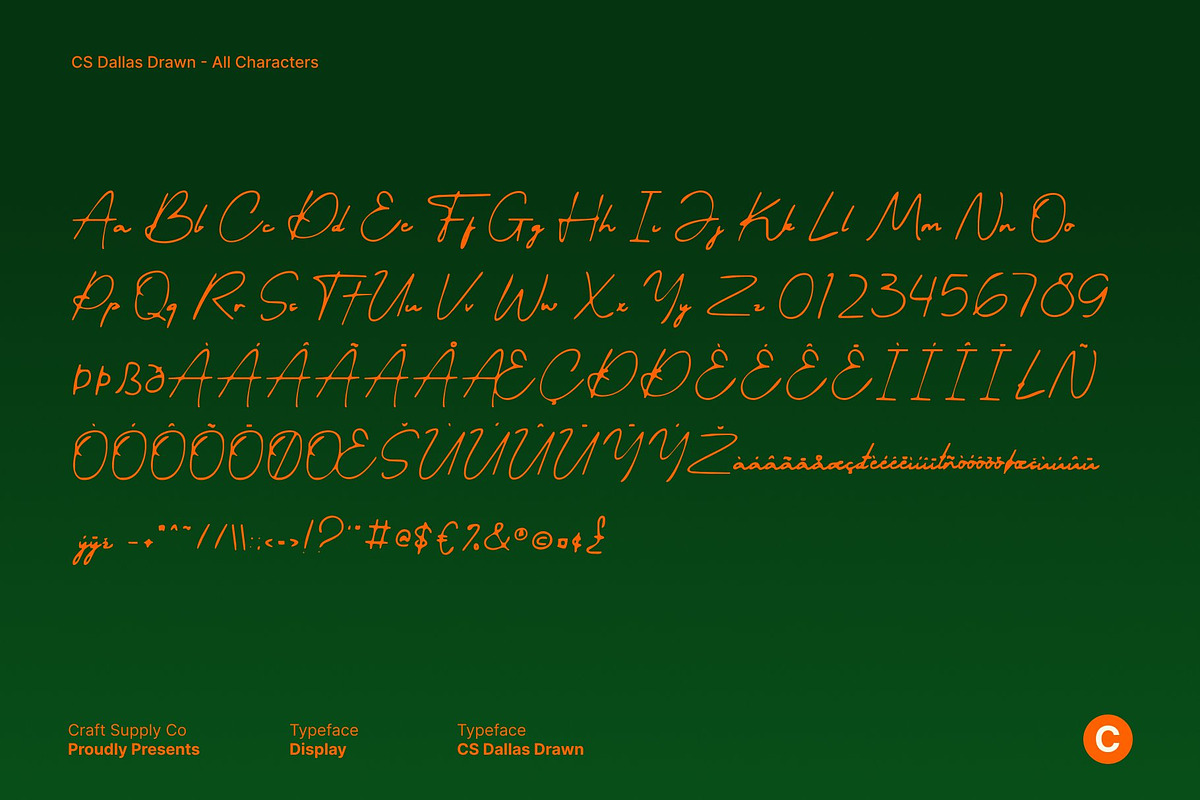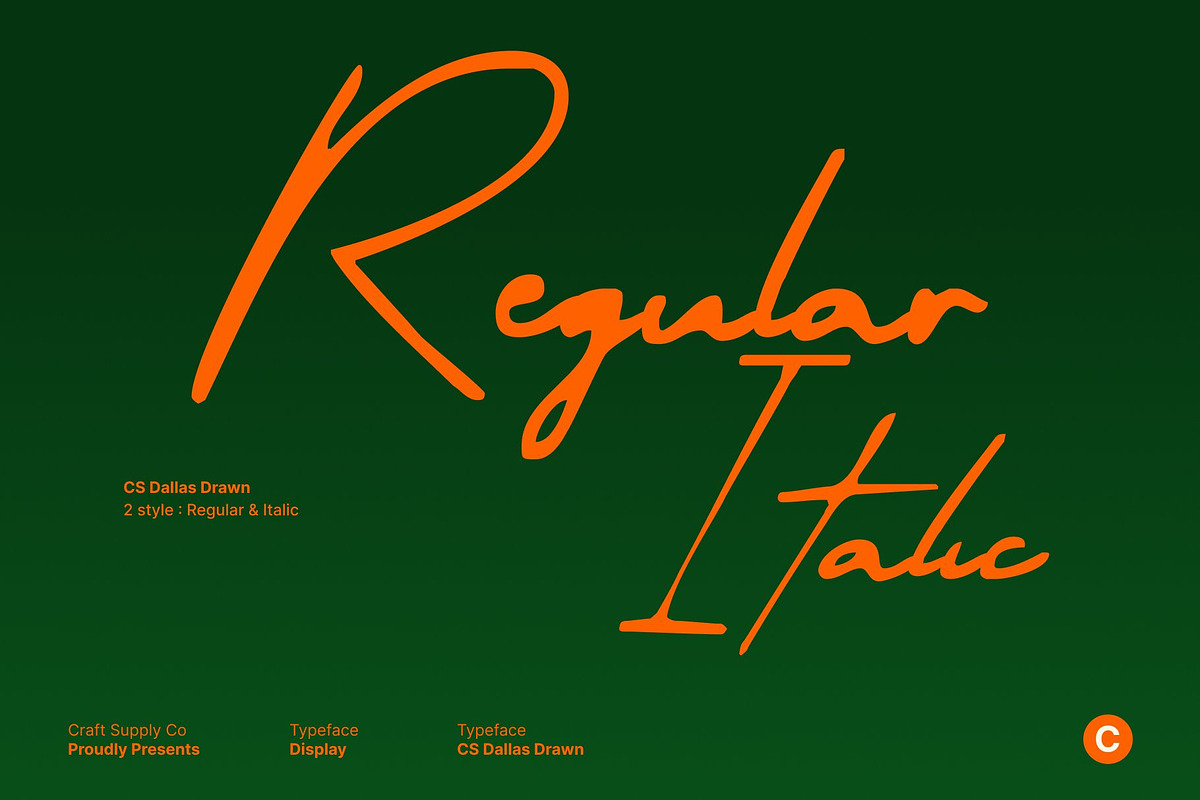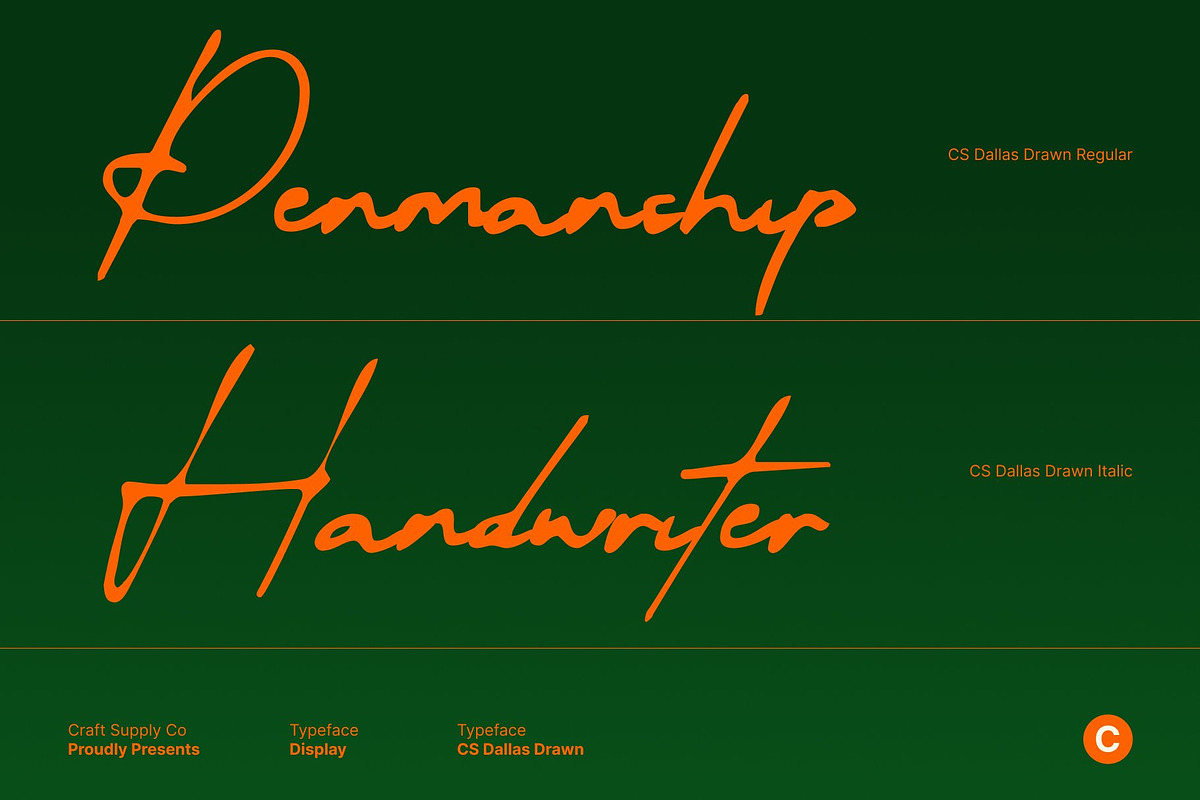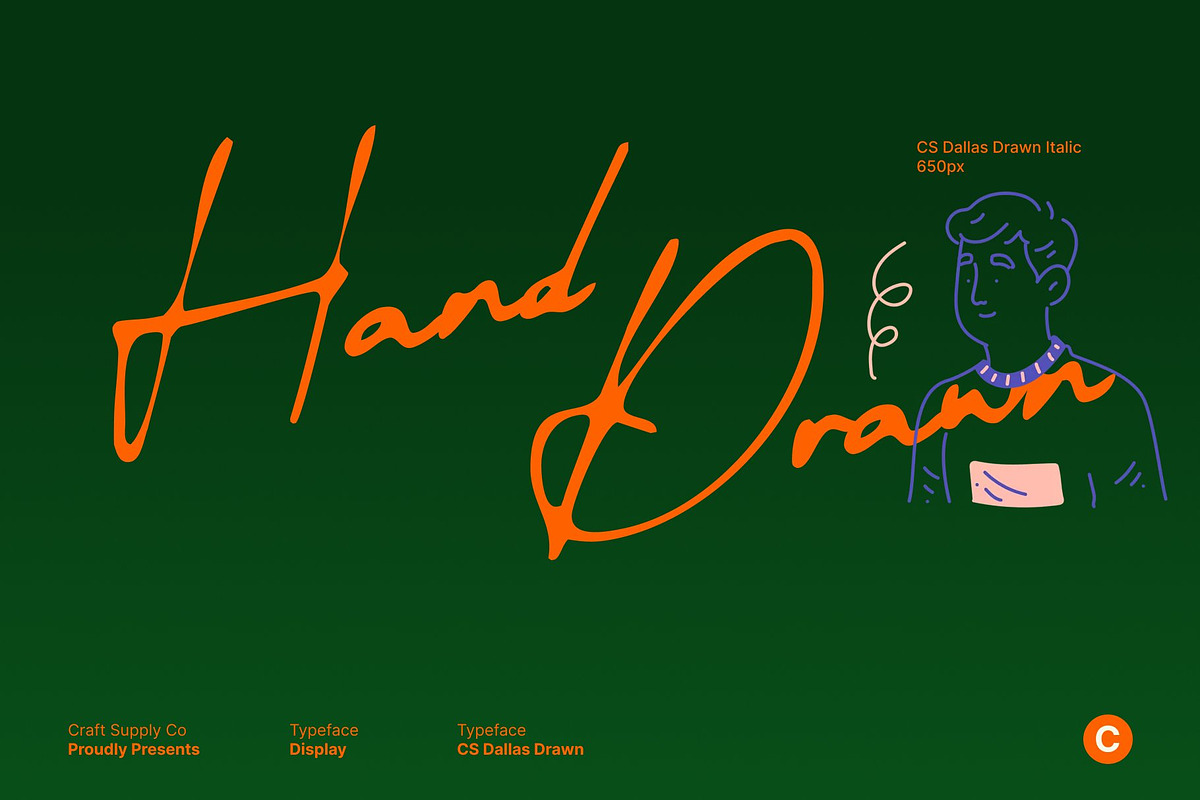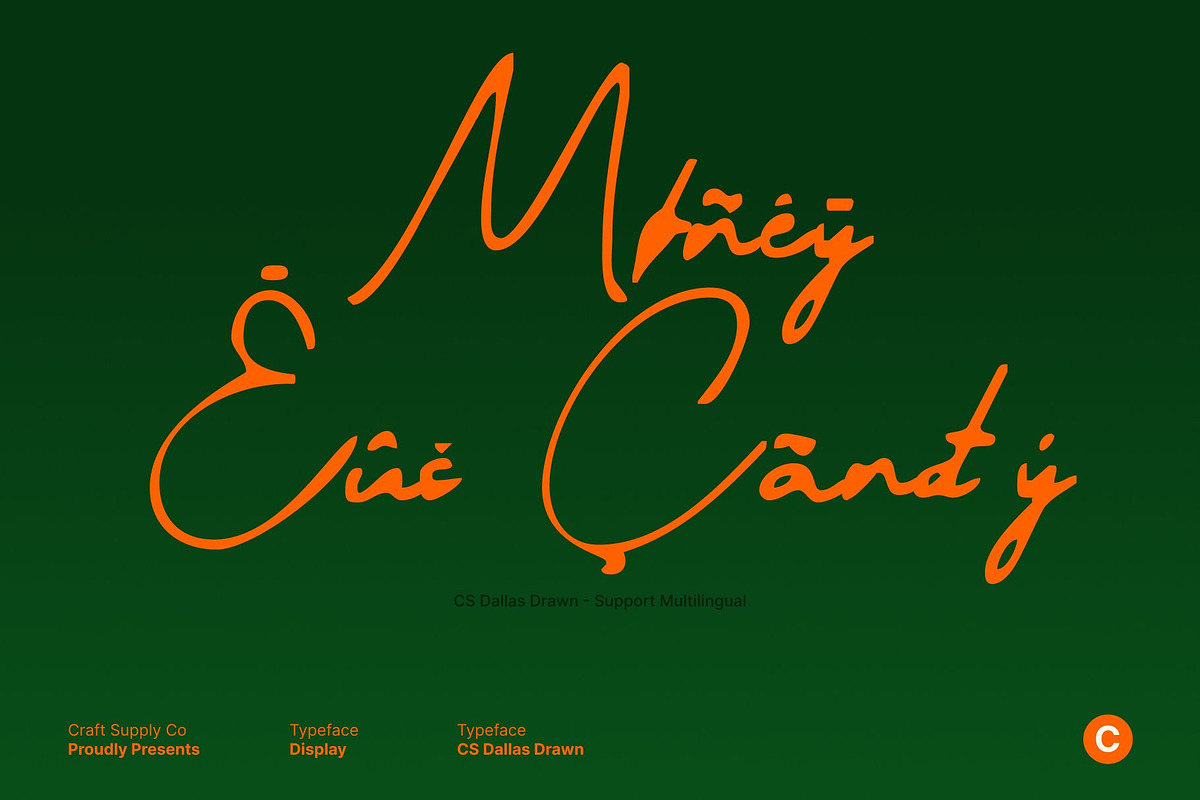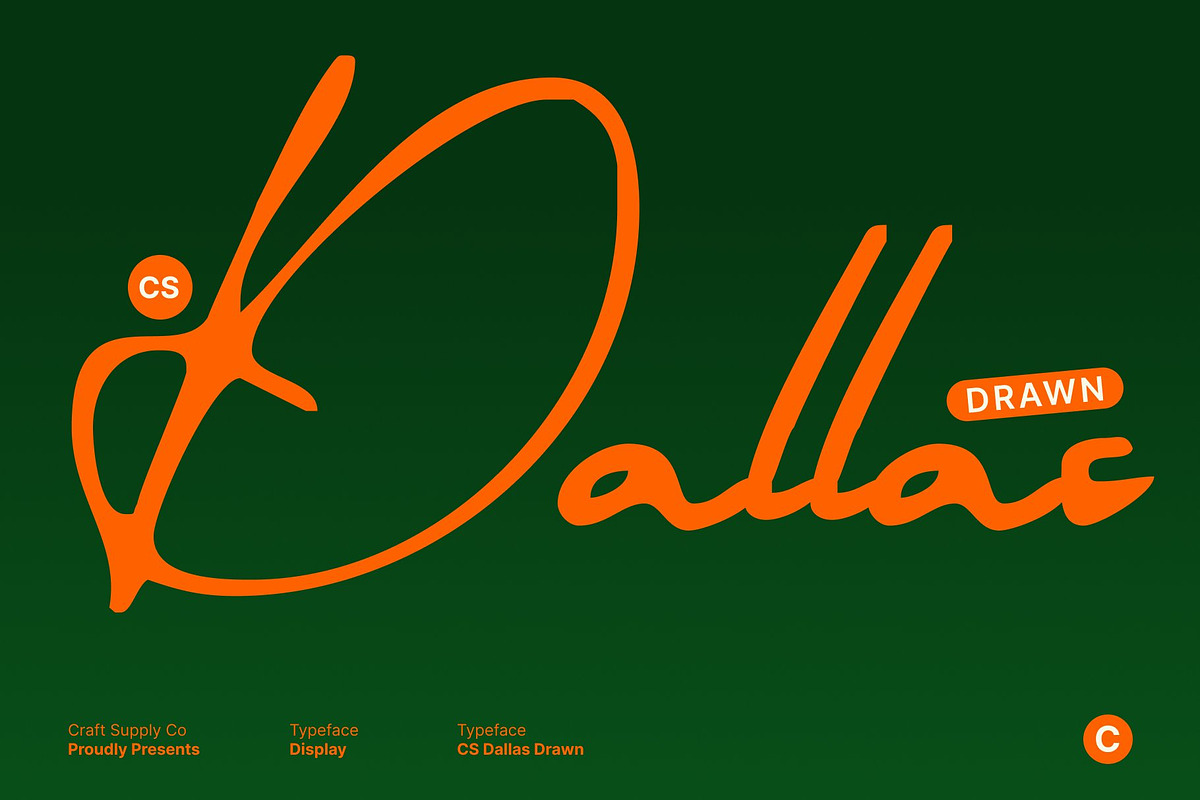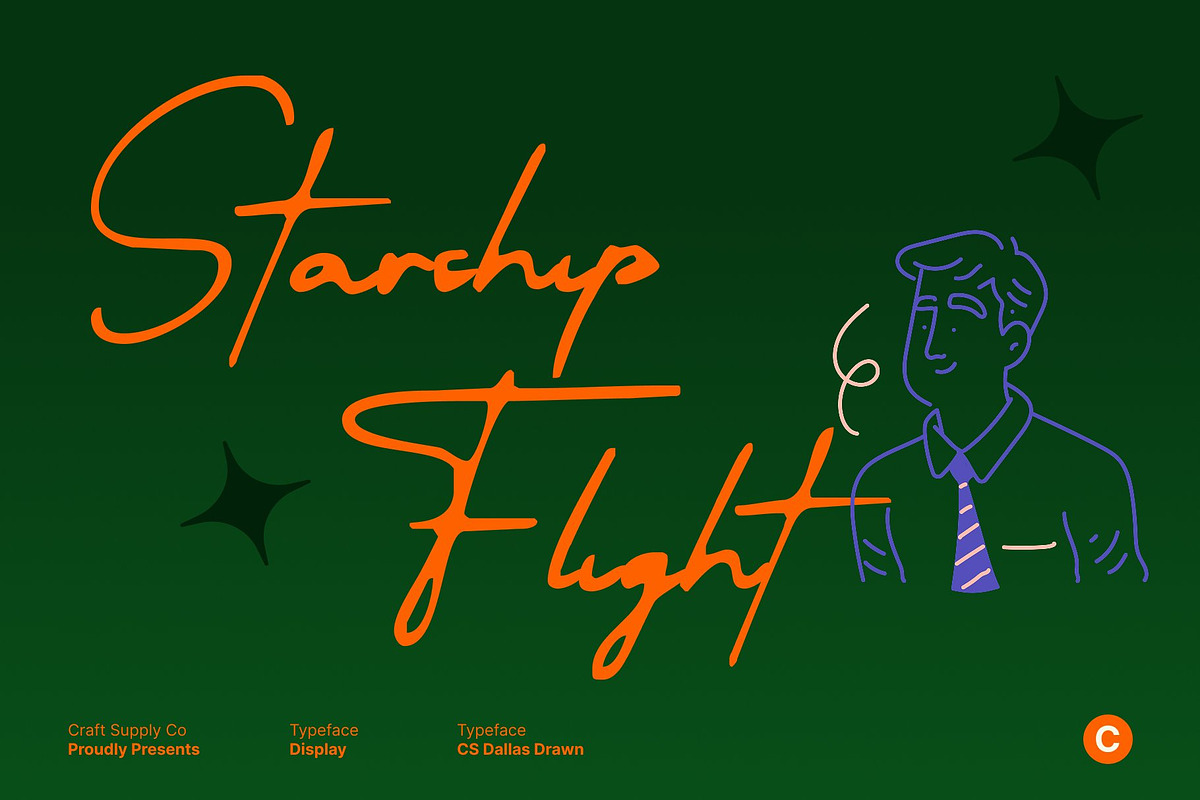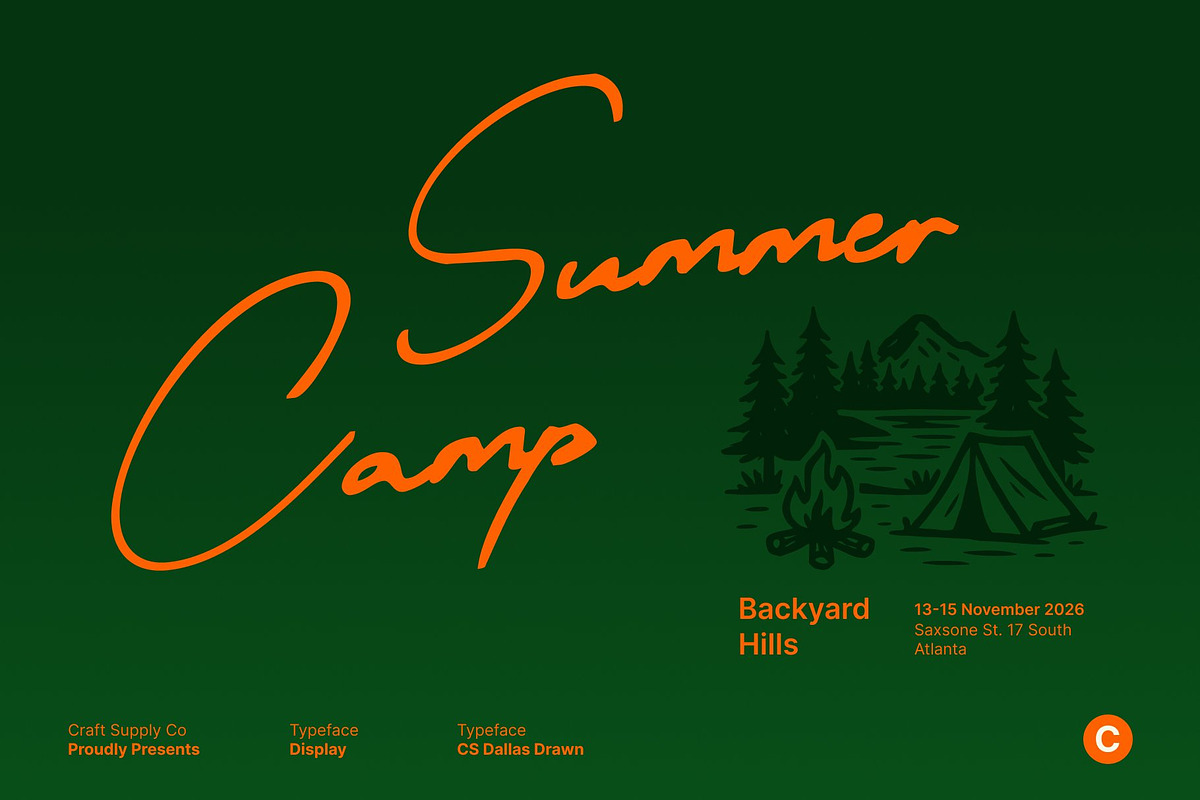
CS Dallas Drawn
CS Dallas Drawn – Signature Elegance with Personal Character
Signature Script Font with Handwritten Authenticity This is a signature script font designed to reflect the personal and distinctive nature of handwritten signatures. Inspired by natural pen movement and fluid writing, this font is enhanced with a subtle drawn effect that adds warmth and artistic depth. Its smooth flow and confident strokes create an authentic handwritten feel, making it ideal for designs that value individuality, elegance, and personal expression.
Natural Flow with Hand-Drawn Character The letterforms feature graceful connections and organic stroke variations that closely resemble real signature writing. The drawn texture introduces gentle imperfections, giving each character a soft, handcrafted quality. This balance between spontaneity and refinement allows the font to feel personal yet polished, turning text into a unique visual signature.
Elegant Expression with Artistic Softness This font balances softness and confidence through flowing curves and artistic contours. The drawn finish adds a refined, human touch that enhances its luxurious feel without becoming overly decorative. It conveys professionalism, intimacy, and exclusivity. Perfect for designs that aim to feel elegant, modern, and sincerely personal.
Ideal for Logos, Branding, and Luxury Invitations Designed for premium and personal applications, perfect for logos, branding, luxury invitations, packaging, and fashion or beauty-related projects. Its signature-inspired form and hand-drawn elegance make it especially suitable for personal brands, boutique businesses, and upscale event materials that seek authenticity and timeless style.